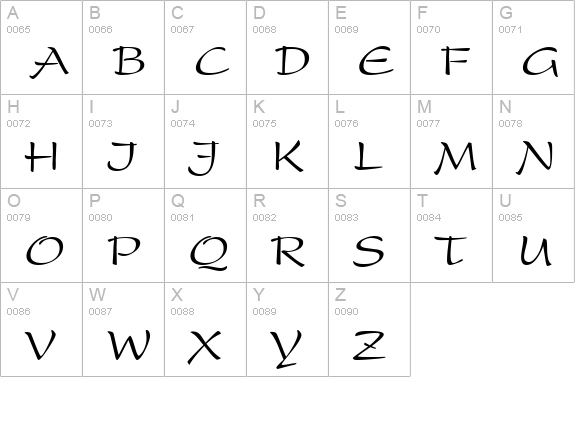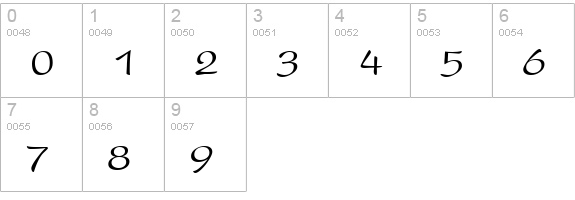
P820-Script-Regular Font Details
P820-Script-Regular is the standard, neutral variant in the P820 typeface family \xE2\x80\x94 well suited to general body text, paragraphs, and standard typographic work.
P820-Script-Regular font is a stunning and elegant typeface that exudes sophistication and charm. With its graceful and flowing script style, this font is perfect for adding a touch of luxury to your designs. Whether you're working on invitations, branding materials, or any creative project that requires a touch of elegance, P820-Script-Regular is sure to make a statement. The beauty of this font is that it is not only visually appealing but also versatile. Its classic yet modern design allows it to be used in a variety of contexts, making it a valuable asset for designers and creatives alike. The best part? P820-Script-Regular is completely free to download at FontsMarket.com. This means that you can enhance your projects with this gorgeous font without breaking the bank. So why wait? Download P820-Script-Regular today and elevate your designs with its timeless beauty and sophistication.